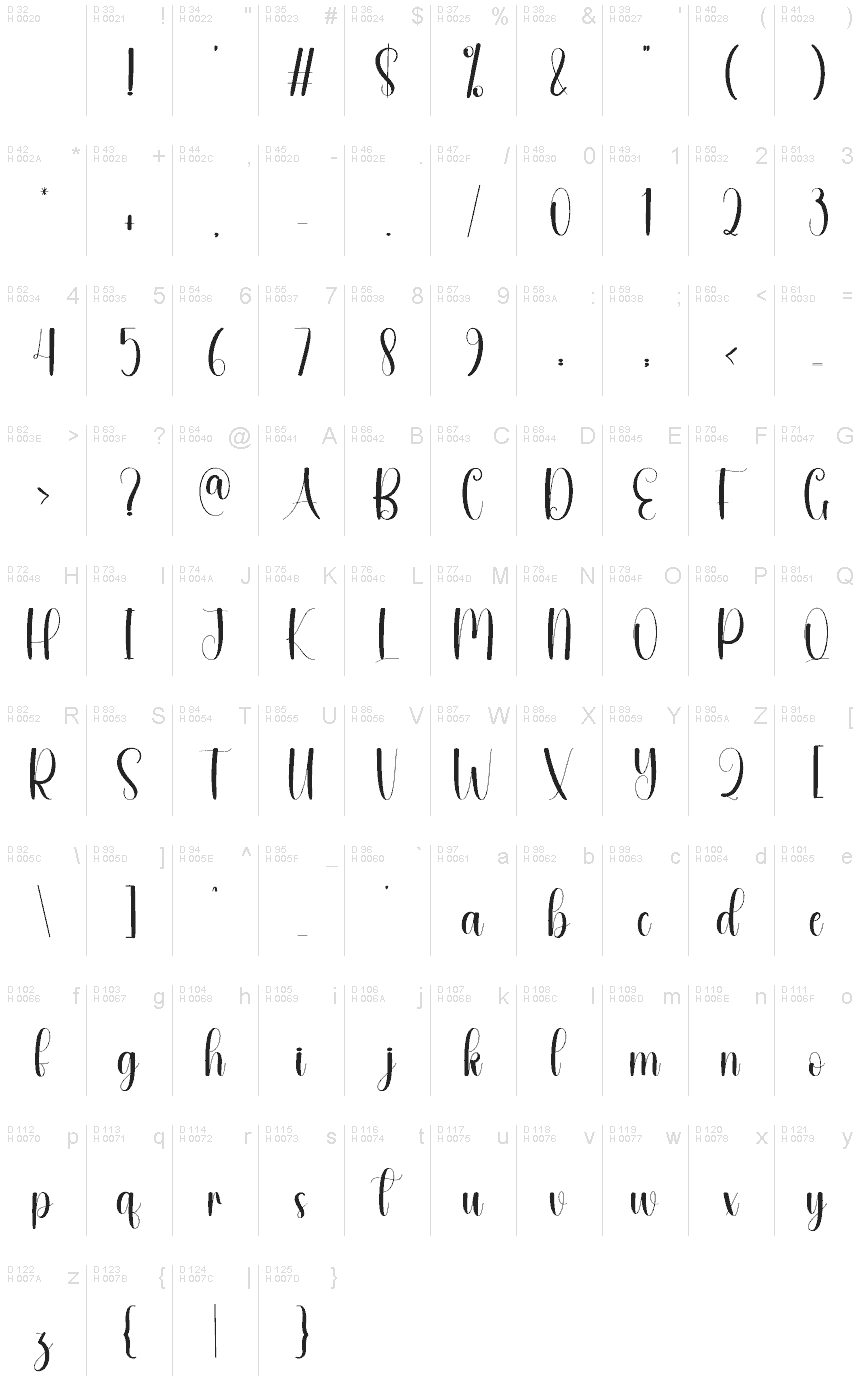
Amature
Amature font by Andi Moz is a free calligraphy font with a sophisticated ambiance. Expressive and modern, this elegant typeface features decorative elements that flow through each glyph. Every character in this display font is creative and professional and thus well-suited for branding alongside other formal uses.
Use it in logo designs, wedding invites, cards, banners, business cards, headers, web designs, posters, catalogs, magazines covers or pages or any elegant projects that come to mind.